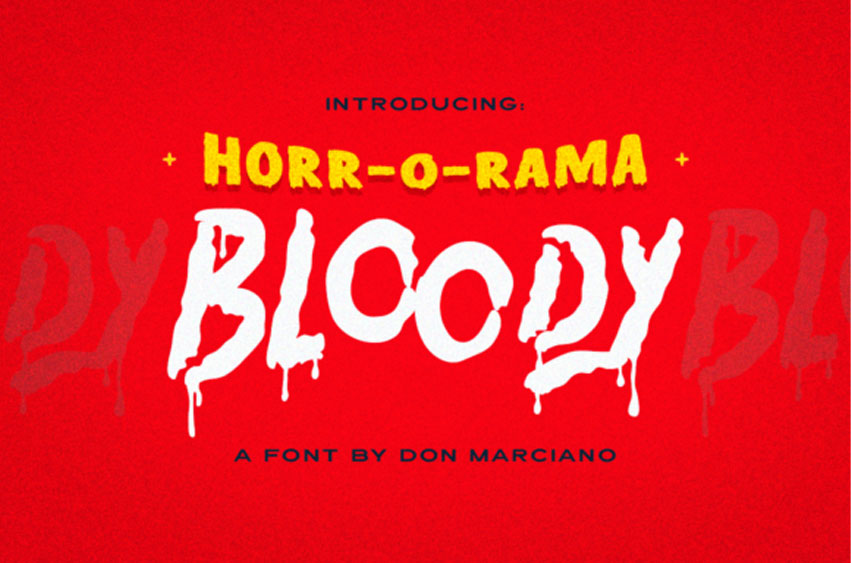
Bloody Font
Bloody Font is part of the iconic Horr-o-Rama series and features bold blood splatters.
It will make a great addition to any Halloween or Horror craft!